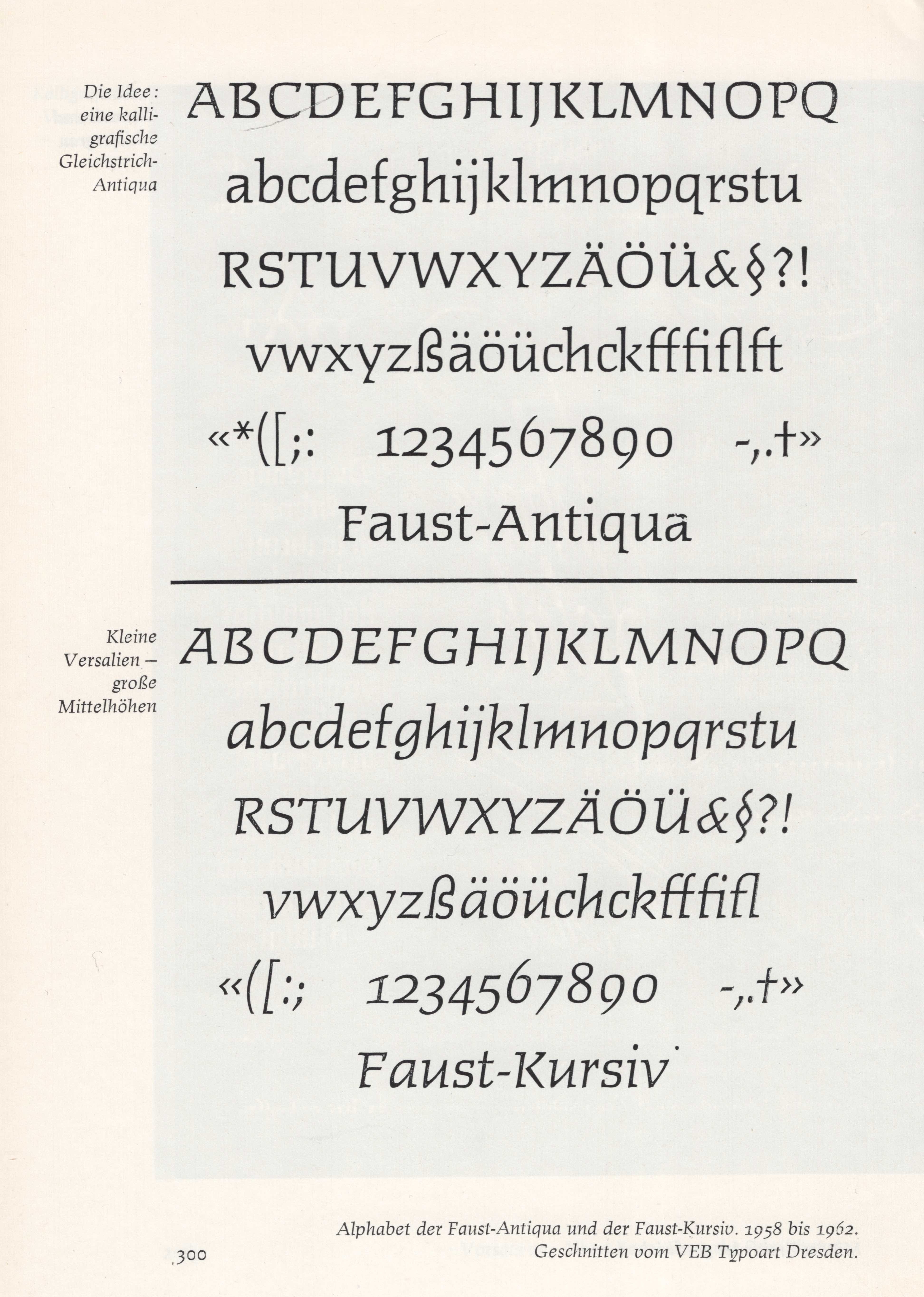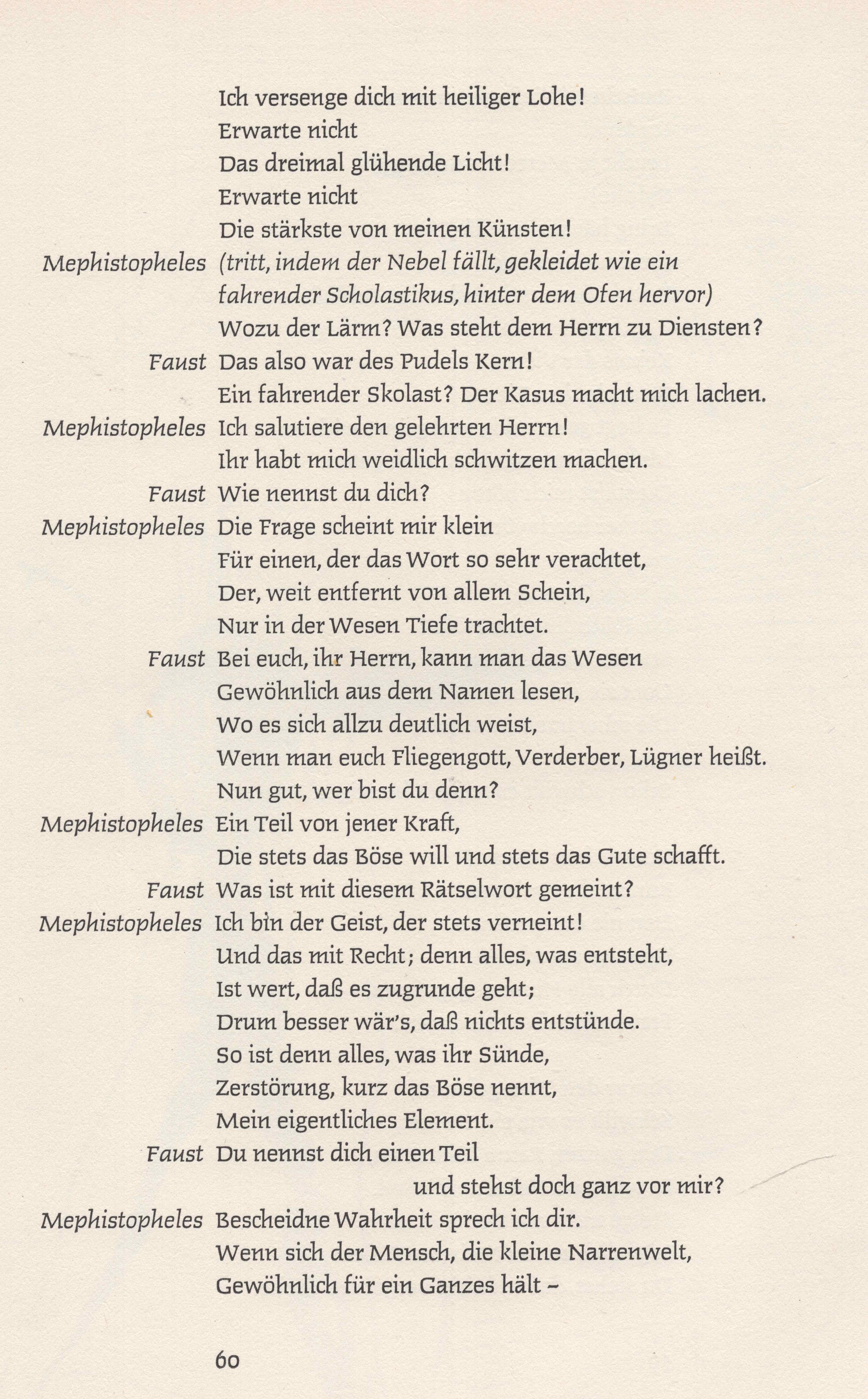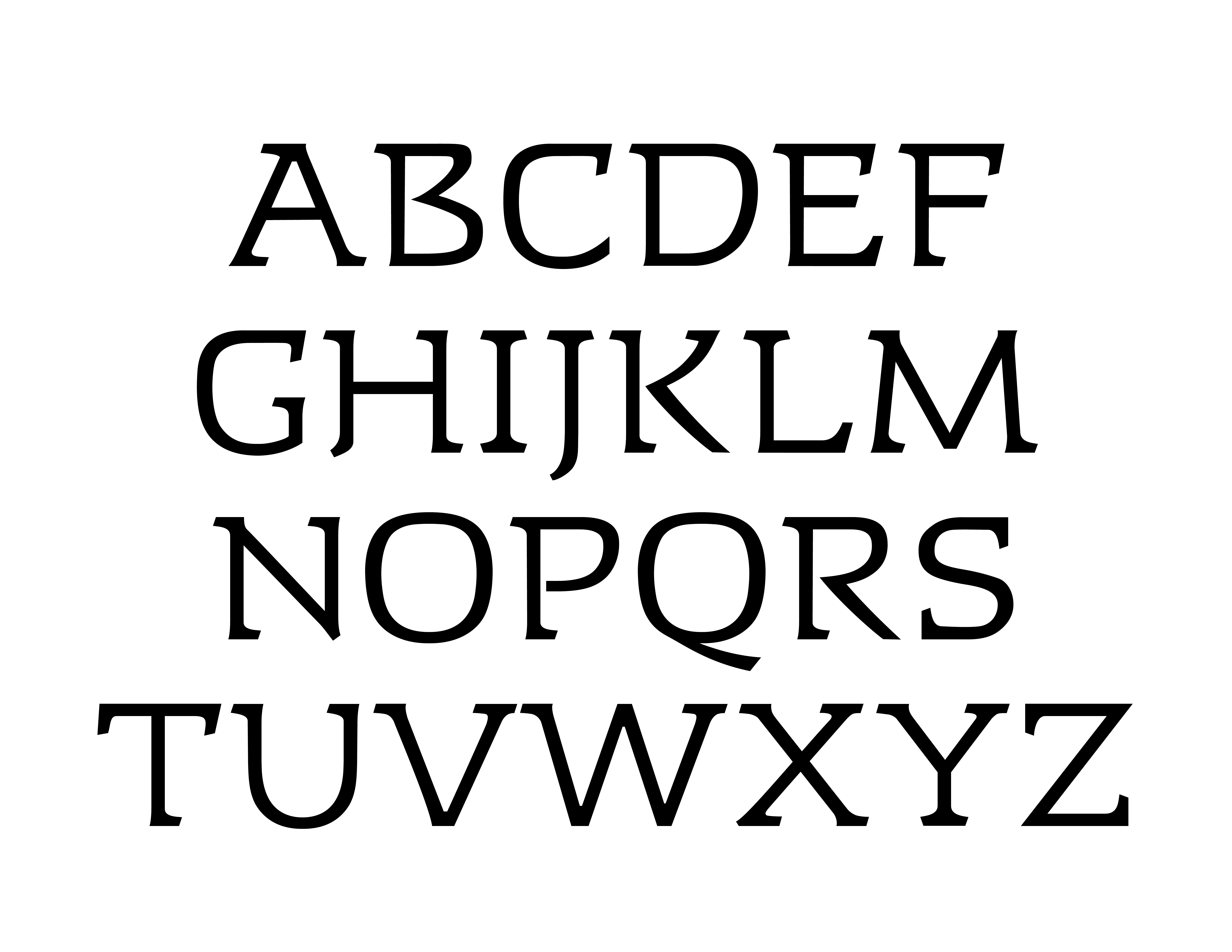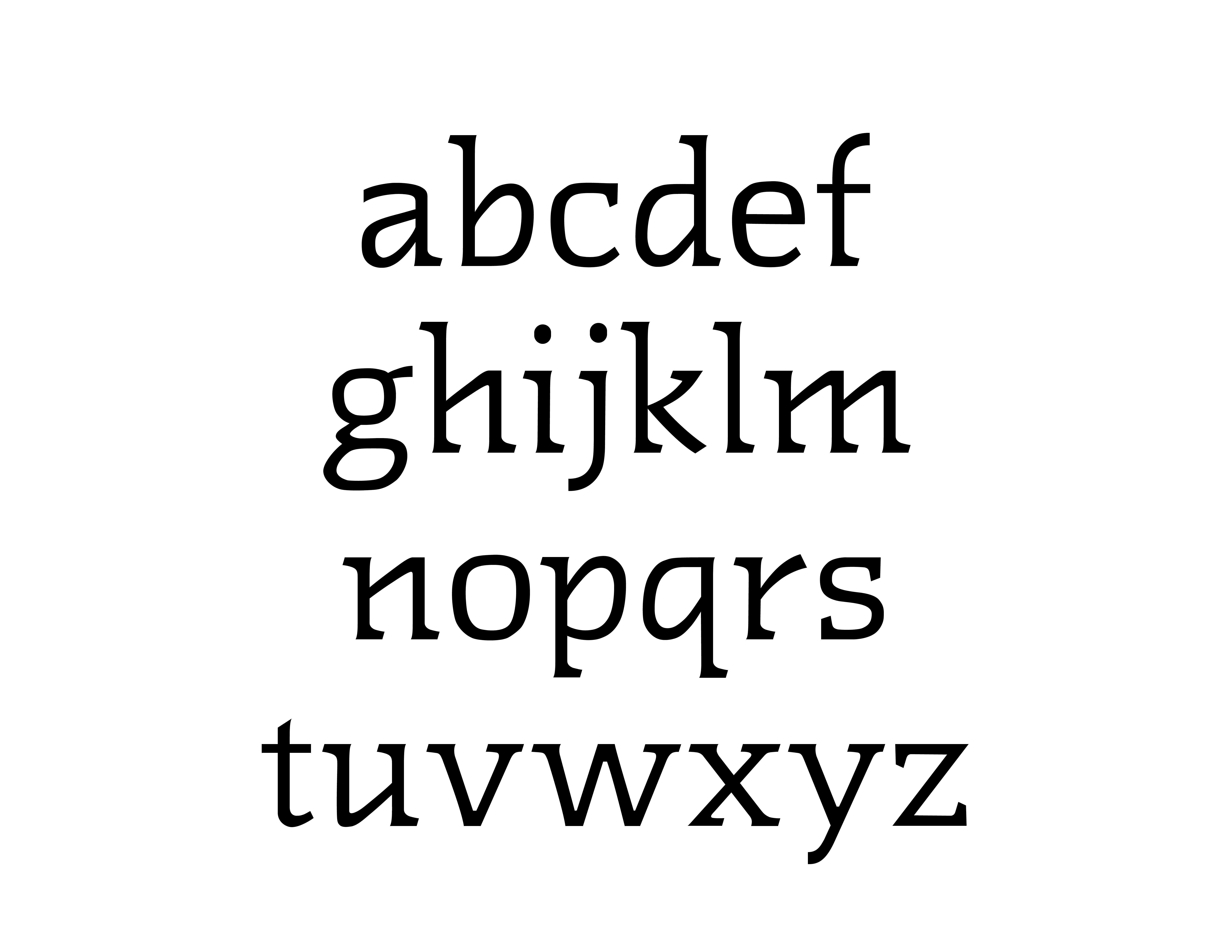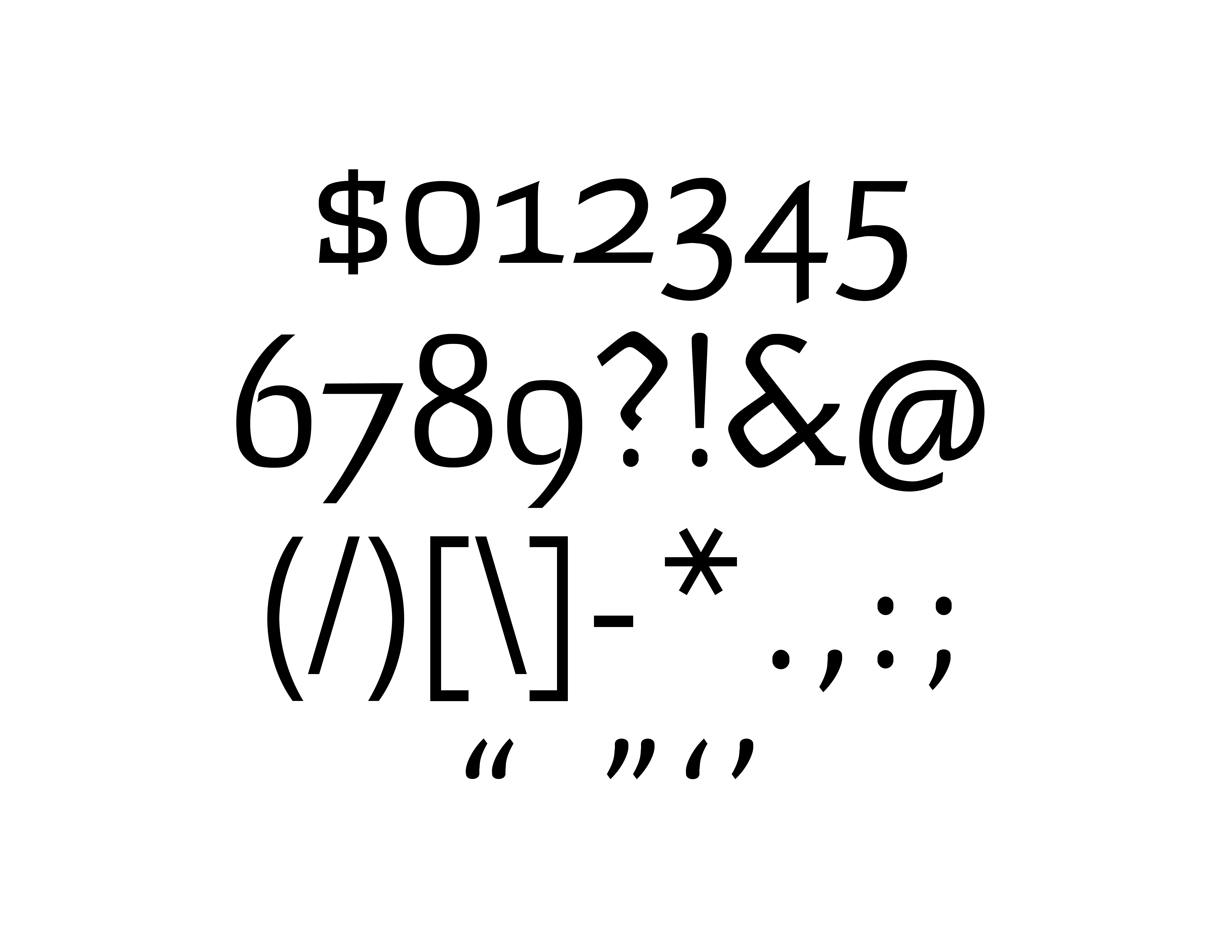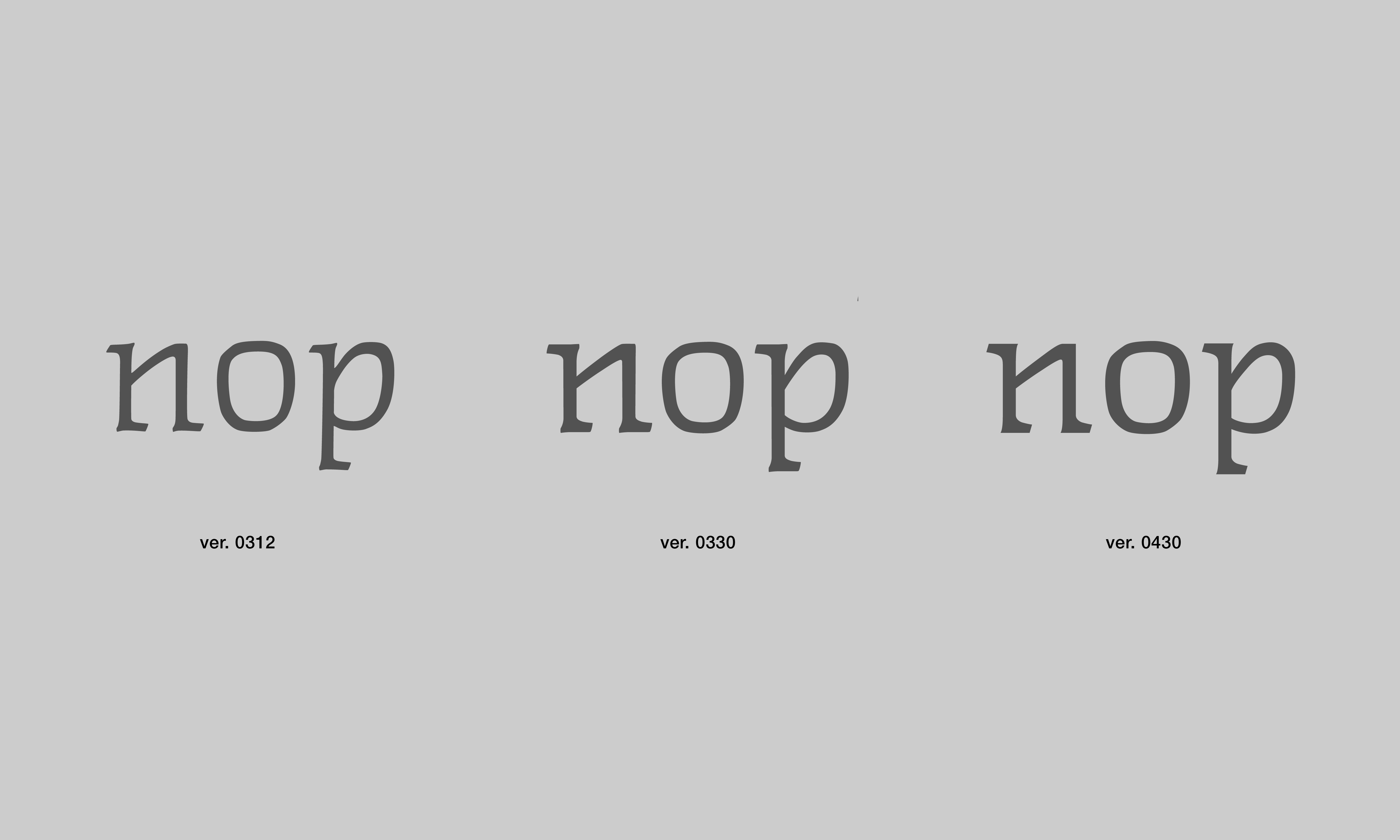
Faust
Source material: Faust-Antiqua 1959
Looking at The Encyclopaedia of Typefaces, I was drawn to these calligraphic unusual letters with thick one-way serifs. Thanks to Nina and Dan, I got good scans of this “rare” Antiqua German typeface. I enjoy the rhythm of how it is shown in text and simplify the details for contemporary use.
The biggest challenge is to reduce the quaint and complicated calligraphic stroke. I put most of my efforts into making the serifs simple and energetic.